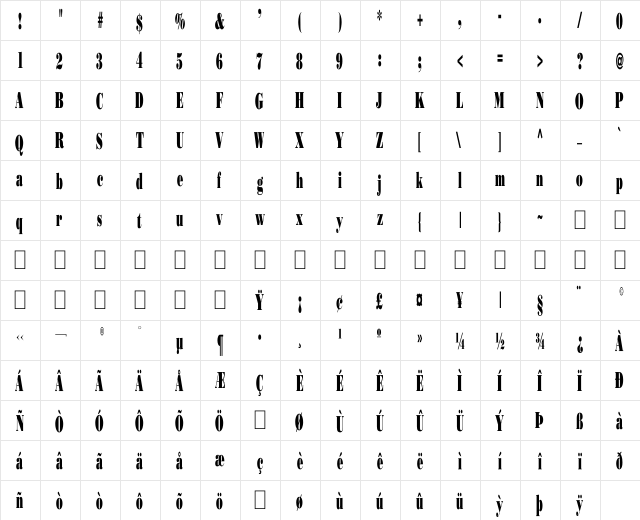
BD Poster Regular
Design Context for BD Poster Typeface
BD Poster is a composed and adaptable typeface that performs quietly and consistently across a wide range of design contexts. Its bold stroke weight gives it real presence on the page.